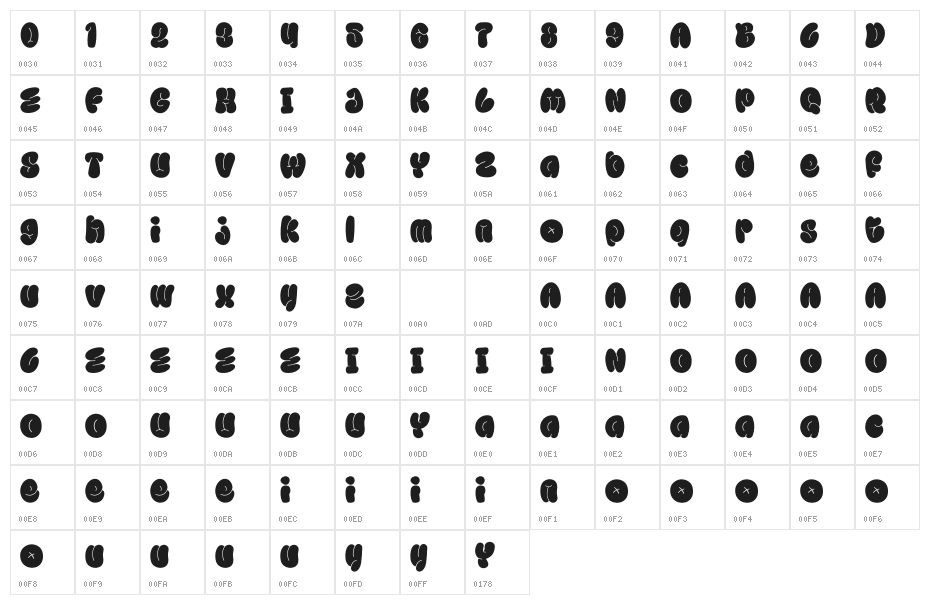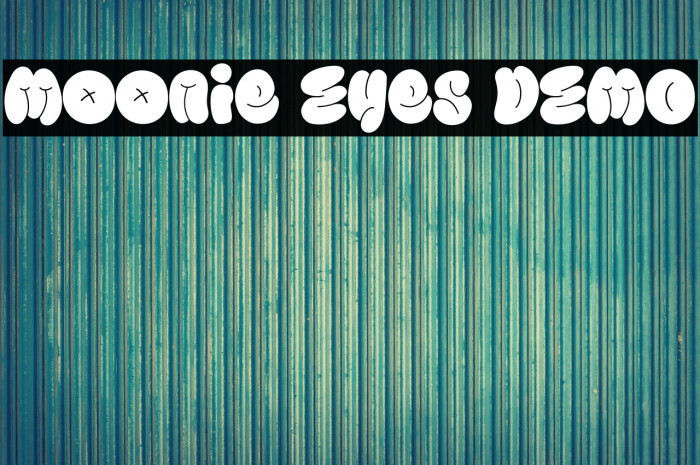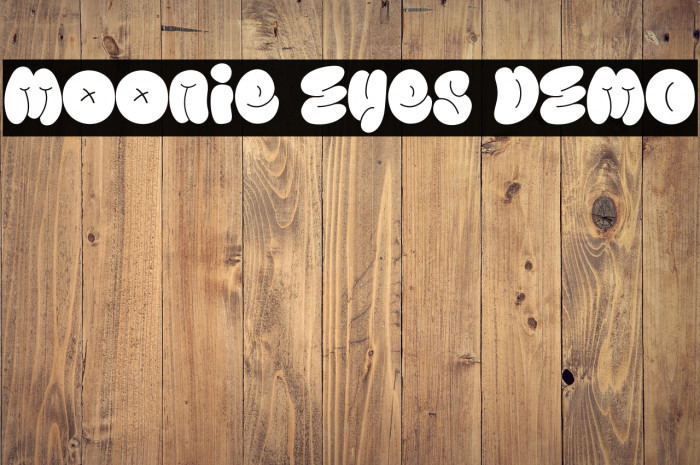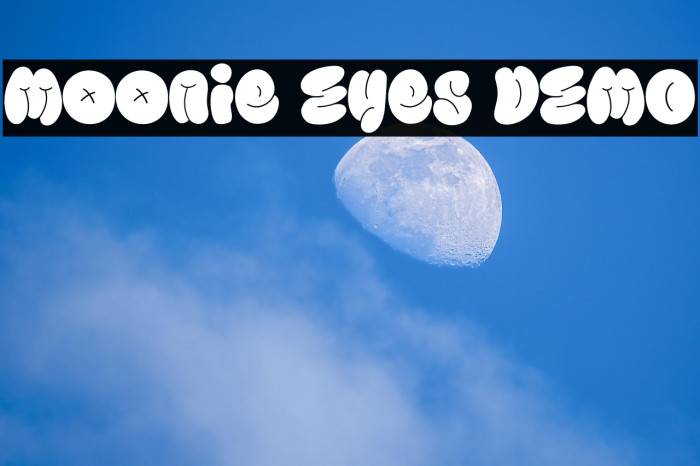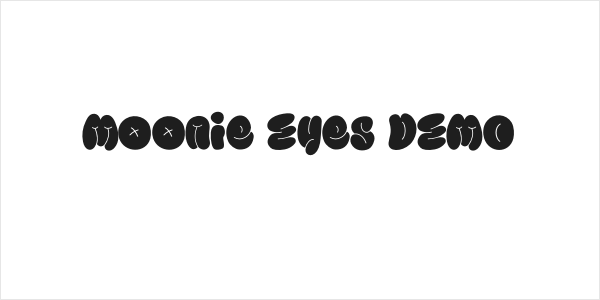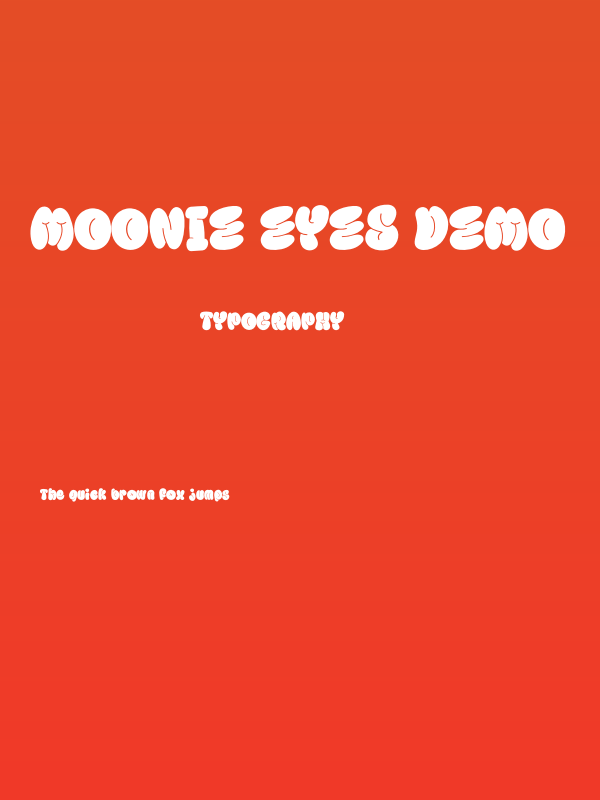
Moonie Eyes DEMO Font
Moonie Eyes DEMO Description
This font features a bold and playful design with rounded, bubble-like characters. Each letter is crafted with a sense of whimsy, incorporating thick strokes and a consistent, heavy weight throughout. The characters have a unique, almost cartoonish appearance, making them stand out with their exaggerated curves and soft edges. The font maintains a consistent width, giving it a uniform look that is both eye-catching and approachable. The numbers and special characters follow the same playful style, ensuring a cohesive appearance across all elements.
Overall StylePlayful, Whimsical
Proposed ProjectsIdeal for children's books, playful branding, posters, and any project requiring a fun, eye-catching typeface.